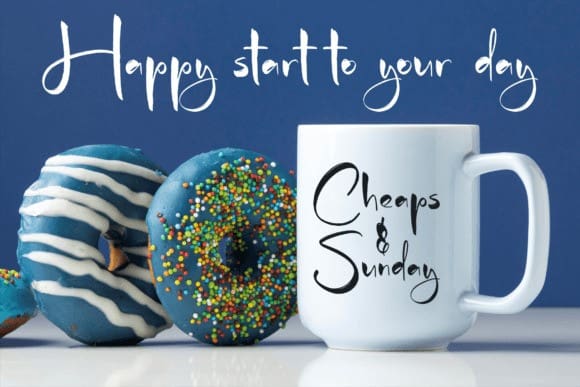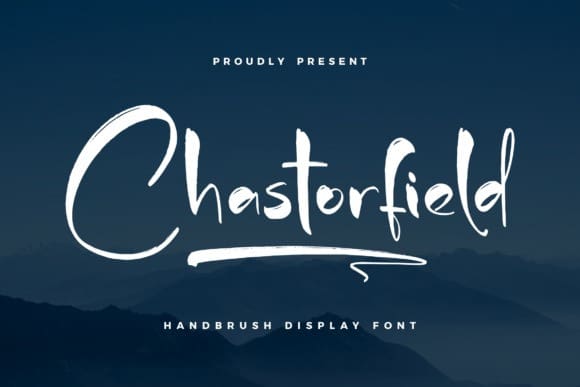
Chastorfield Brush Font
Chastorfield Brush Font is a graceful, modern script font. With its beautiful rhythm, this font will help you create gorgeous and classy compositions. Use it for branding projects, invitations, web graphics, cards, and many more!